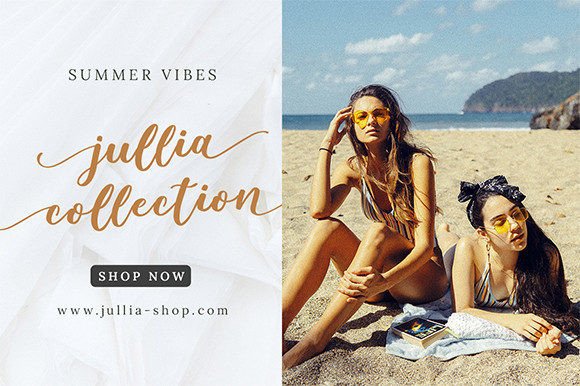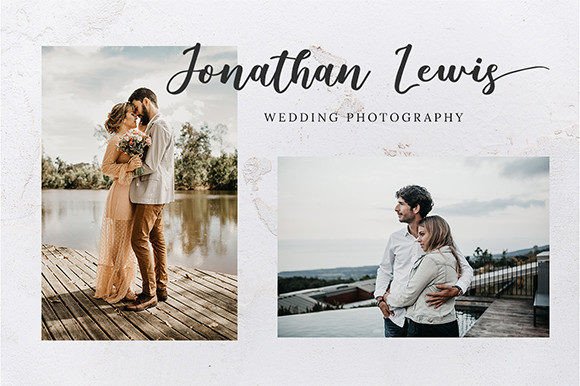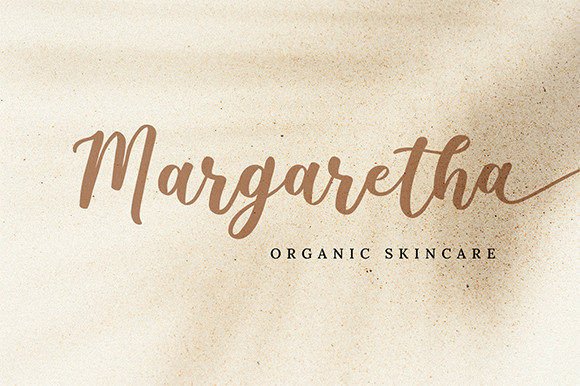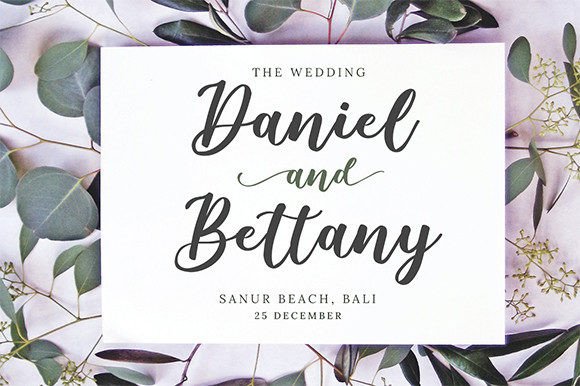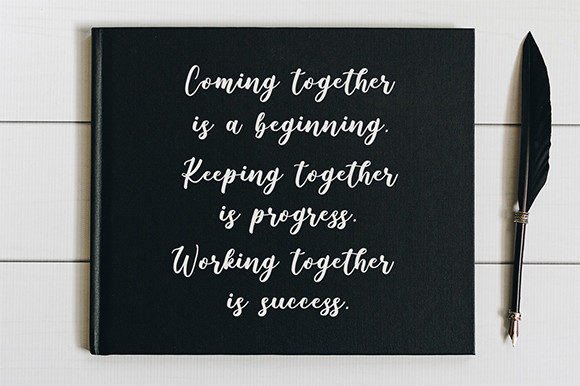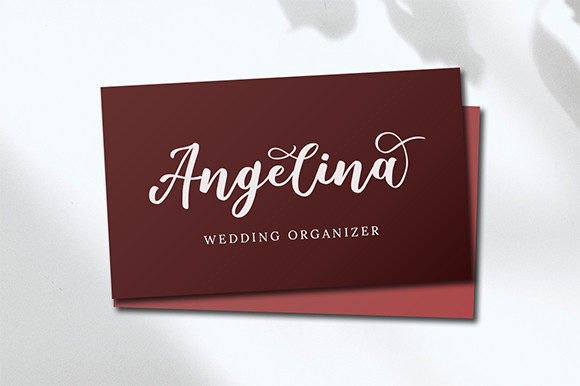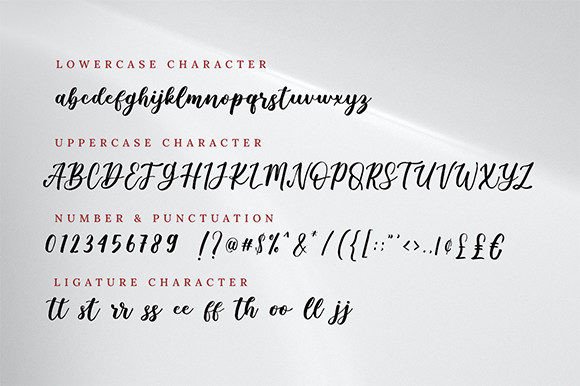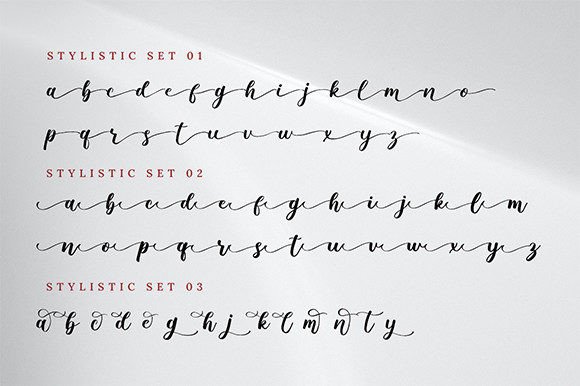
Graduation Font
About Graduation Font
“Graduation is a sweet and romantic script font, designed to add a touch of elegance to your projects. PUA encoded for easy access to all its glyphs and swashes, this font is suitable for a variety of applications, including weddings, business cards, logotypes, magazines, quotes, fashion, watermarks, and invitations.
The charm of Graduation lies in its romantic script style, making it a perfect choice for projects that demand a graceful and sophisticated aesthetic. This font becomes a versatile option for designers seeking a typeface that brings a romantic and sweet touch to their creations.
Whether you’re working on wedding invitations or creating a stylish logotype, Graduation stands out as a font that enhances the overall visual appeal. Its flowing script and romantic characters add a sense of elegance and charm to your text.
Imagine Graduation elevating your projects, bringing a sweet and romantic script touch that sets a graceful tone. The font becomes the defining element that sets your designs apart, creating a visual experience that resonates with romance and sophistication.
As you explore the nuances of Graduation, you’ll discover its potential to transform ordinary projects into visually striking expressions. Let it be the font that infuses a touch of romantic elegance into your creative vision, making your designs stand out with a sweet and sophisticated aesthetic. With Graduation, every stroke becomes a brushstroke of timeless beauty.”